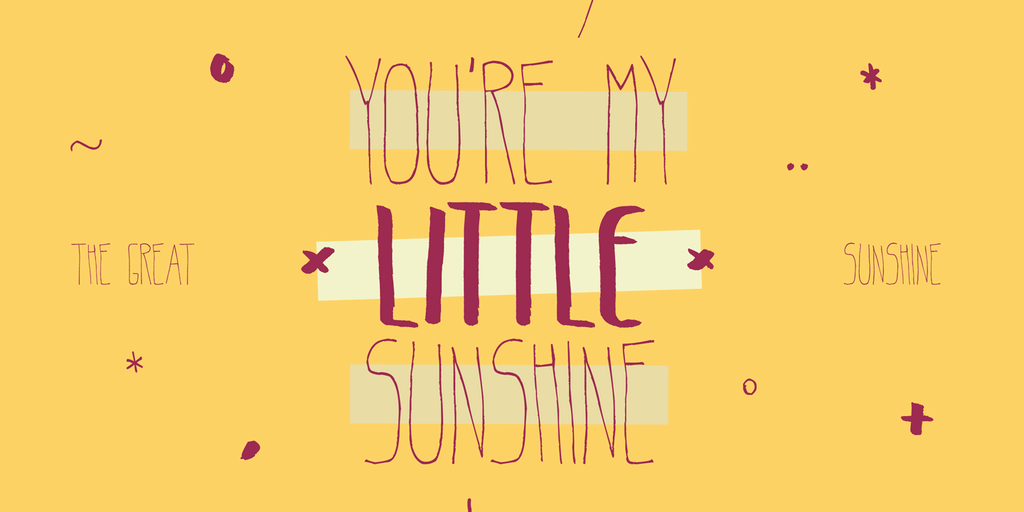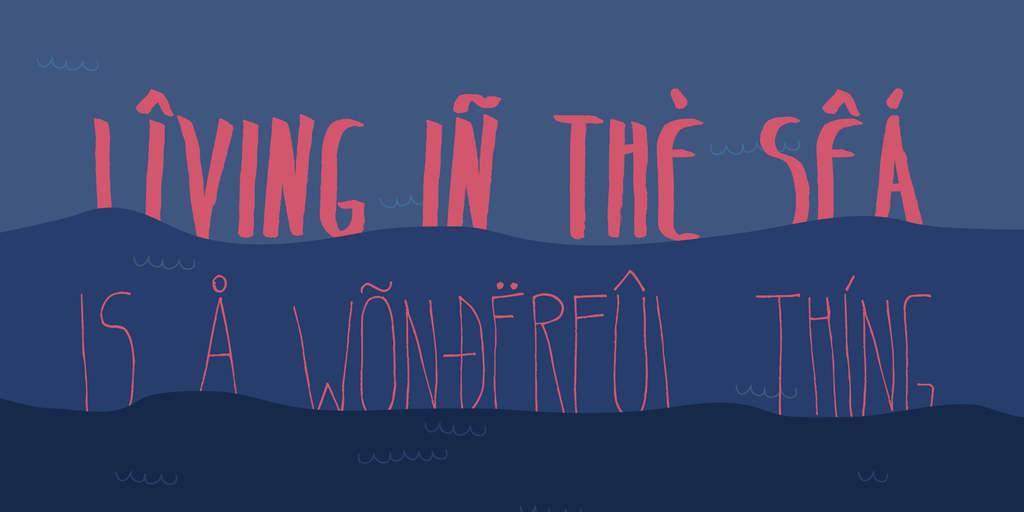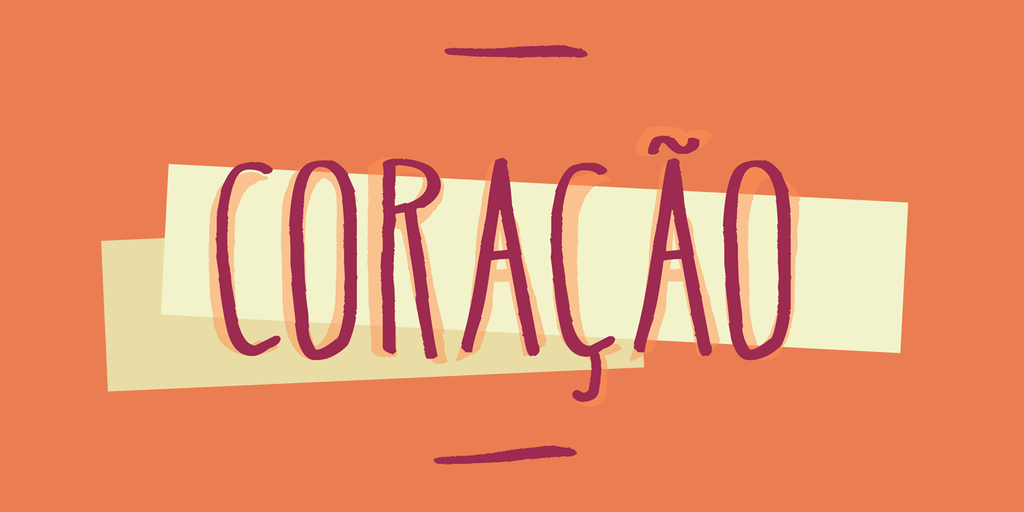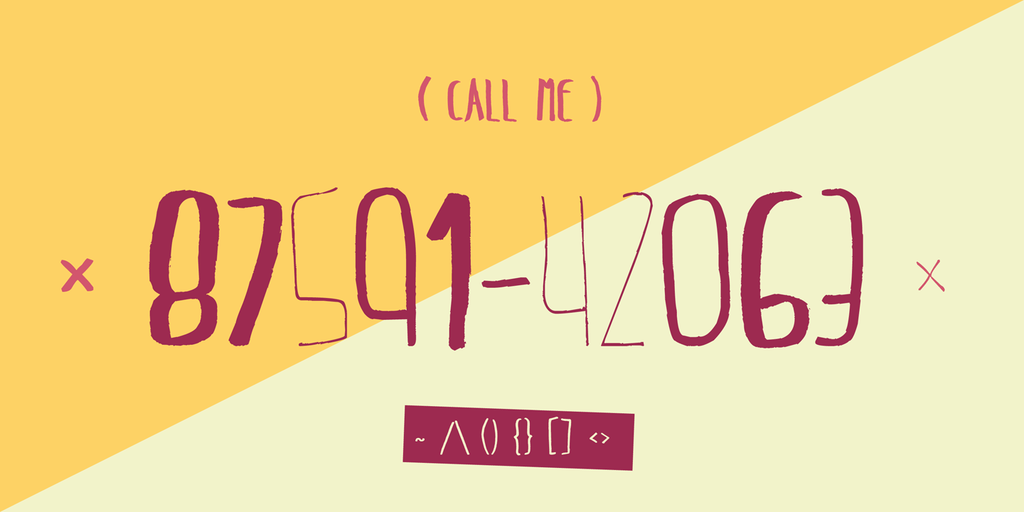
Belta
Font Family by Antipixel Type Studio
Belta is a playful handwritten sans serif with a tall, narrow build and an easygoing, hand-drawn feel. Its bouncy baseline, rounded forms, and slightly irregular strokes give it a casual, organic personality that feels lively without looking messy.
With Regular, Light, and Bold styles included, this family gives you a flexible set of display options for branding, posters, social graphics, packaging, and other work that benefits from a friendly, quirky voice. The condensed proportions help it fit comfortably into tight spaces while still keeping plenty of character.
Designed by Antipixel Type Studio, Belta balances sketchy charm with a clean monoline structure, making it a strong choice when you want something informal, modern, and visually distinctive.